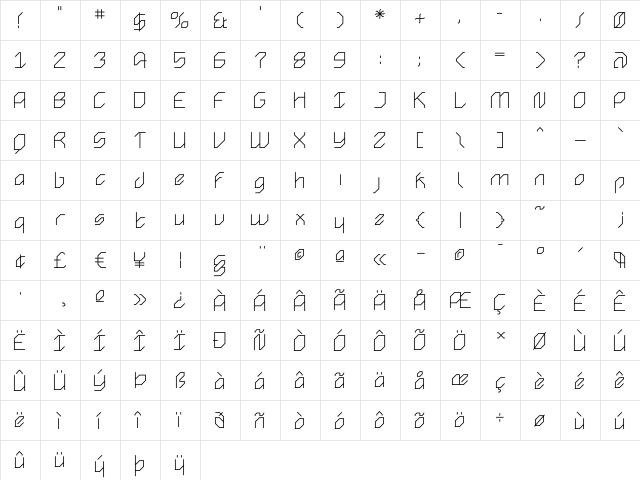
AngolSharp Regular Regular
Design Context for AngolSharp Regular Typeface
AngolSharp Regular takes a measured approach to typography — its balanced proportions and neutral character make it a reliable workhorse for both digital and print work.